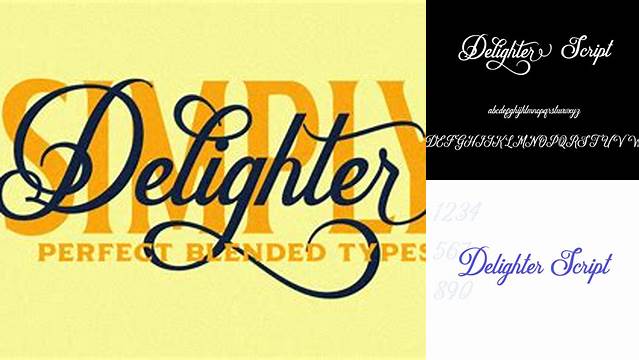
Hey guys! Are you on the hunt for a super cool, eye-catching font? Look no further! Today, we're diving headfirst into the world of the Delighter Script Tracked Font β a font that's perfect for adding a touch of elegance and personality to your projects. And the best part? You can find the Delighter Script Tracked Font free download options, so you don't have to break the bank to get your hands on this beauty. This article will guide you through everything you need to know, from where to find the font to how to use it effectively. Let's get started and explore how the Delighter Script Tracked Font can transform your designs from drab to fab!
Delighter Script Tracked Font: What Makes It Special?
Alright, so what's the big deal about the Delighter Script Tracked Font? Well, it's more than just letters on a screen, folks. This font is a carefully crafted blend of style and readability. The Delighter Script Tracked Font is known for its elegant script style, giving off a vibe of sophistication and charm. The tracking in the name refers to the spacing between the letters, which is carefully adjusted to enhance readability and visual appeal. This font is a popular choice for various design projects, ranging from invitations and logos to social media graphics and website headers. Its flowing lines and graceful curves add a touch of class and creativity that instantly elevates the overall look and feel of your designs. The Delighter Script Tracked Font, with its unique blend of style and functionality, provides a user-friendly experience, allowing designers to create visually stunning results. The thoughtful attention to detail is apparent, especially the consistent letter spacing, giving you a cohesive and professional appearance. Whether you're aiming for a vintage feel or a modern touch, the Delighter Script Tracked Font has got you covered, offering both versatility and character in a single typeface. This is a font you can always rely on, regardless of the project's design. The Delighter Script Tracked Font offers a unique design, and also the ease of use that makes it a go-to choice for all kinds of design work.
Delighter Script Tracked Font: Key Features and Characteristics
The Delighter Script Tracked Font isn't just pretty; itβs also packed with features that make it a top choice for designers. Let's break down what makes it so special. The Delighter Script Tracked Font comes with a full set of characters, including uppercase and lowercase letters, numbers, and punctuation. That way, you have everything you need to create complete text blocks. One of the key features is its beautiful script style, with flowing lines and elegant curves that add sophistication to any project. Another characteristic is the thoughtful kerning and tracking, which make the font easy to read and visually appealing. The designers have paid close attention to details, ensuring that the letters work together harmoniously. This makes the Delighter Script Tracked Font ideal for anything from invitations to logos. Furthermore, the font offers various stylistic alternatives and ligatures. You can customize the text to perfectly suit your project's needs. For example, you can choose different letter forms or connect letters in unique ways, adding an extra layer of personality to your design. In addition, the Delighter Script Tracked Font often supports multiple languages, so you can use it in international projects. The font is designed with versatility in mind. It works well in various contexts, from print to digital media. And also, the font's compatibility with many design programs is a plus. All of these features make the Delighter Script Tracked Font not only attractive but also highly functional.